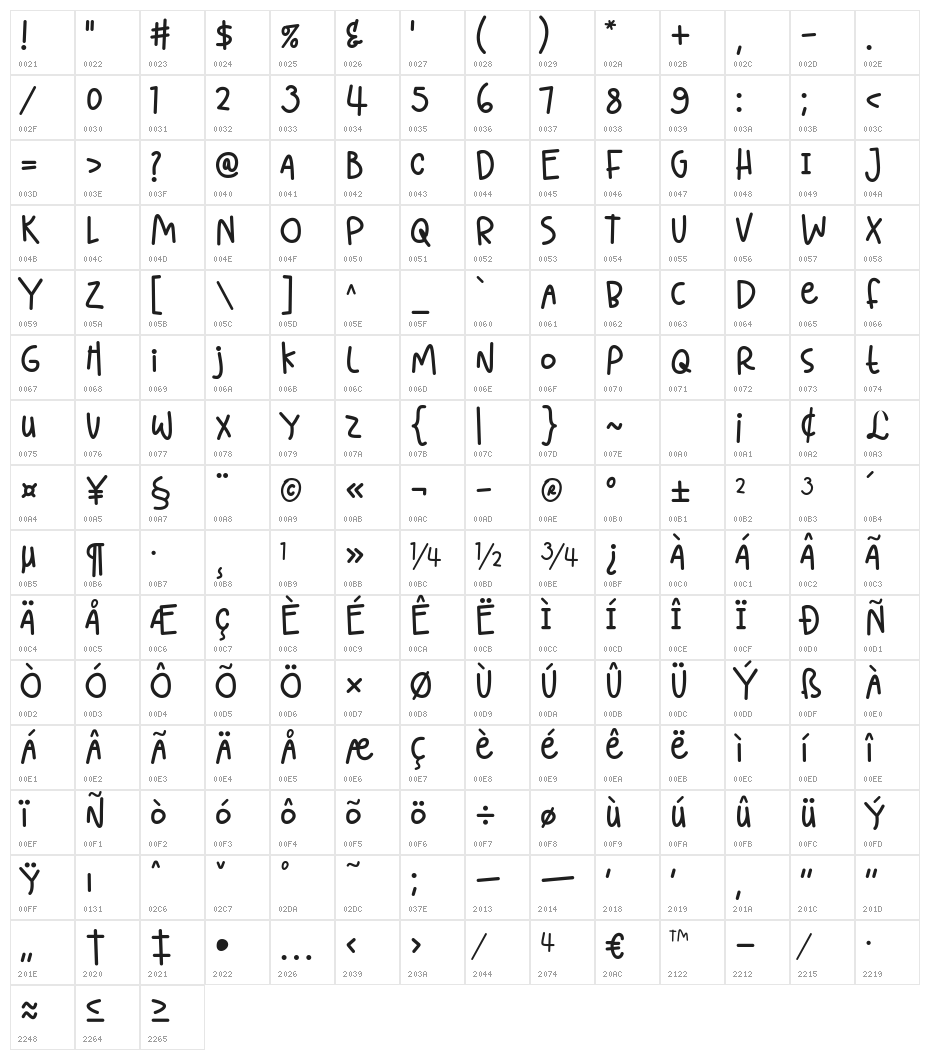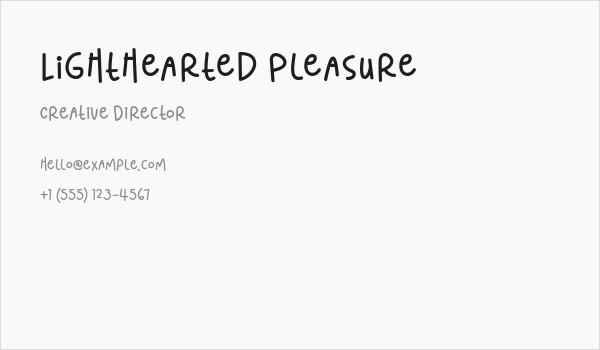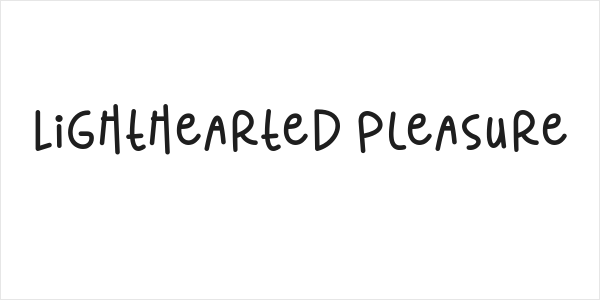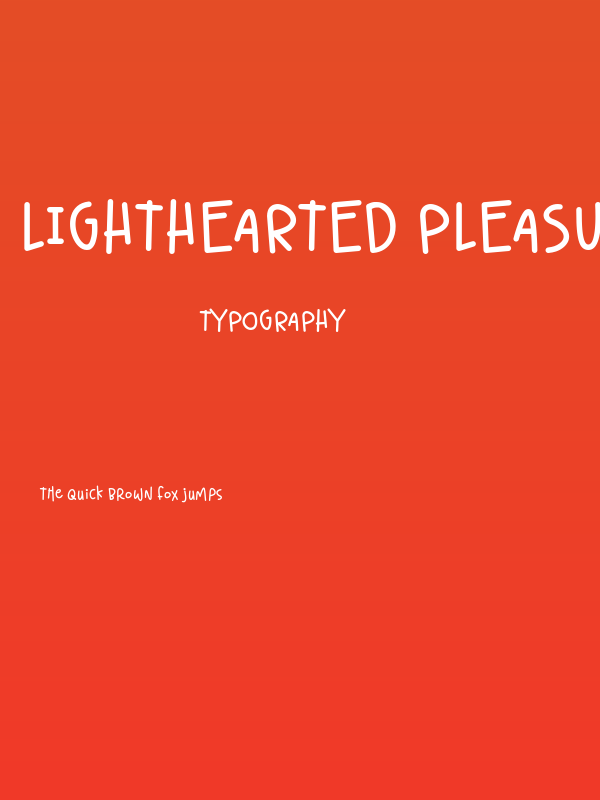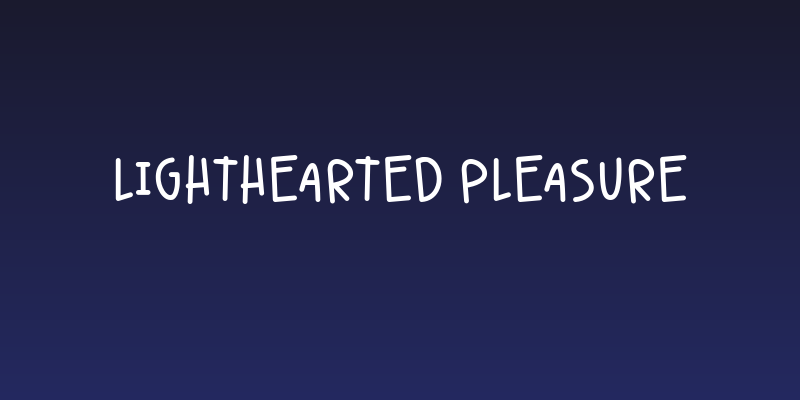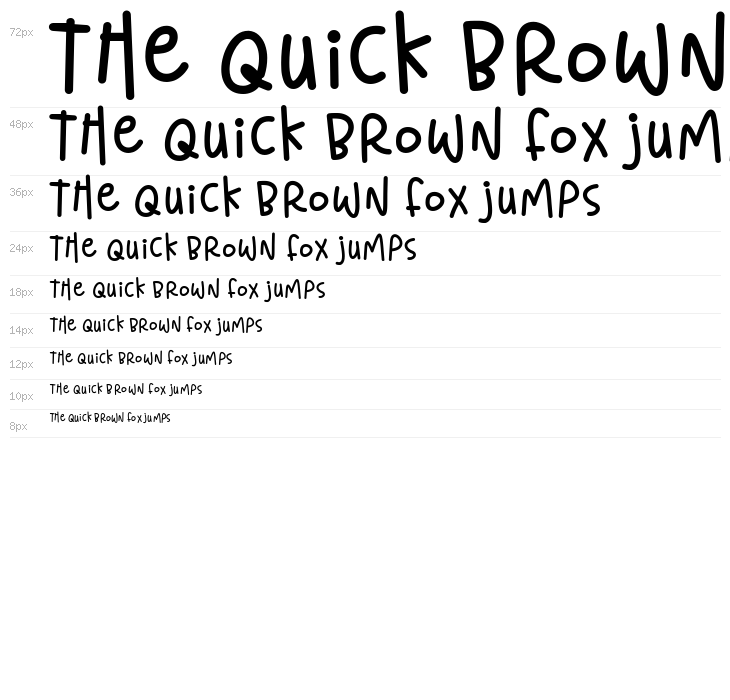
Lighthearted Pleasure Font
Lighthearted Pleasure Description
This font exudes a playful and casual vibe with its handwritten style. The characters are slightly irregular, adding a personal touch that feels inviting and friendly. Each letter is distinct, with rounded edges and a consistent stroke width that maintains readability. The font's informal nature makes it ideal for projects that require a human touch. It captures a sense of whimsy and spontaneity, perfect for creative and lighthearted designs. The numbers and special characters are equally charming, maintaining the same playful aesthetic throughout.
| Proposed Projects | Ideal for greeting cards, children's books, casual branding, and social media graphics. |